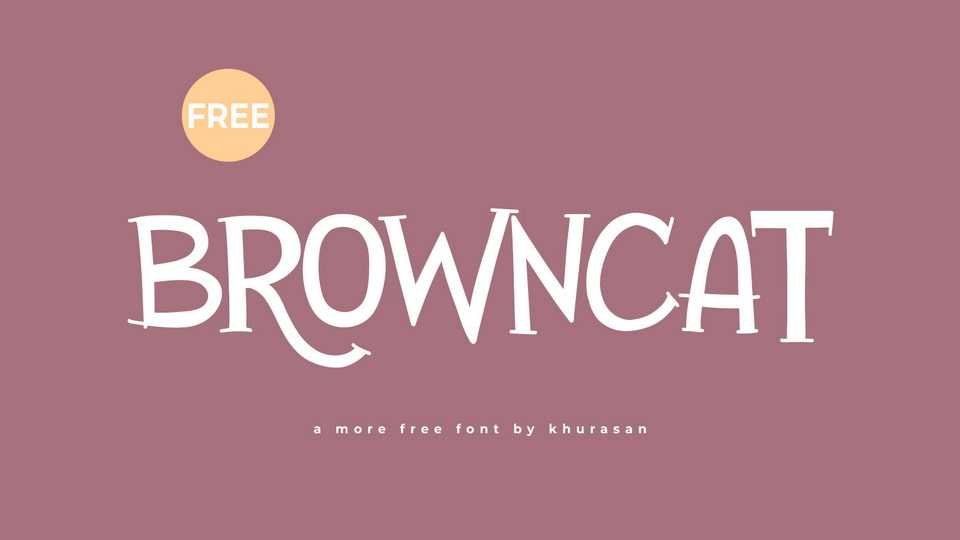
Download Browncat font, a playful and whimsical hand-lettered cartoon typeface that injects a burst of joy into your designs. The font creates a carefree spirit, featuring lively strokes and charming imperfections that bring a sense of fun to your creations.